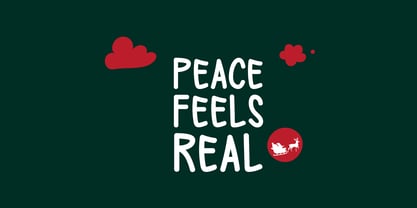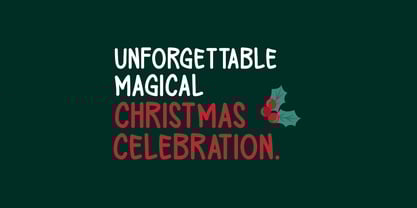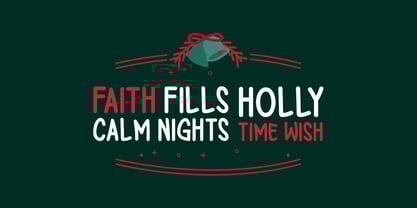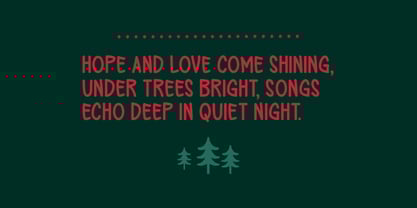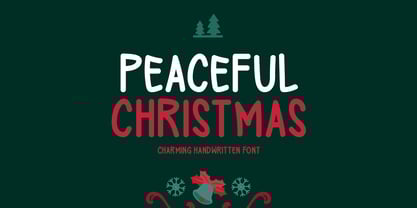
Peaceful Christmas
by Seemly Fonts
The Peaceful Christmas Font Family was designed by Md. Sohail Bhuiyan and published by Seemly Fonts. Peaceful Christmas contains 1 styles. More about this family
Peaceful Christmas is a delightful handwritten typeface that blends sweetness with personality, making it a perfect fit for both holiday themes and everyday designs. From t-shirts and logos to posters, invitations, photo frames, and digital graphics, this font adds a whimsical charm and handcrafted elegance to any project it touches.
Designers: Md. Sohail Bhuiyan
Foundry: Seemly Fonts